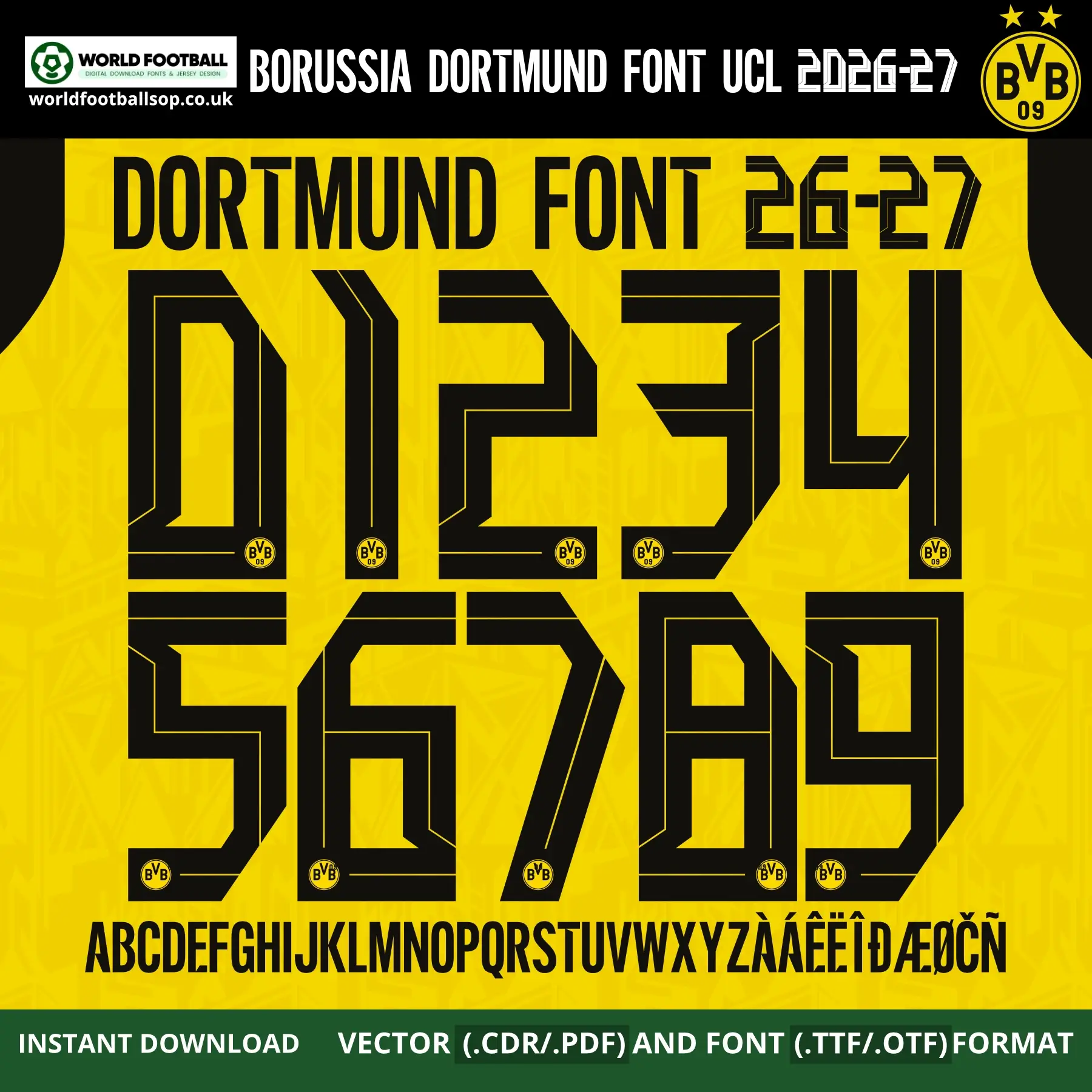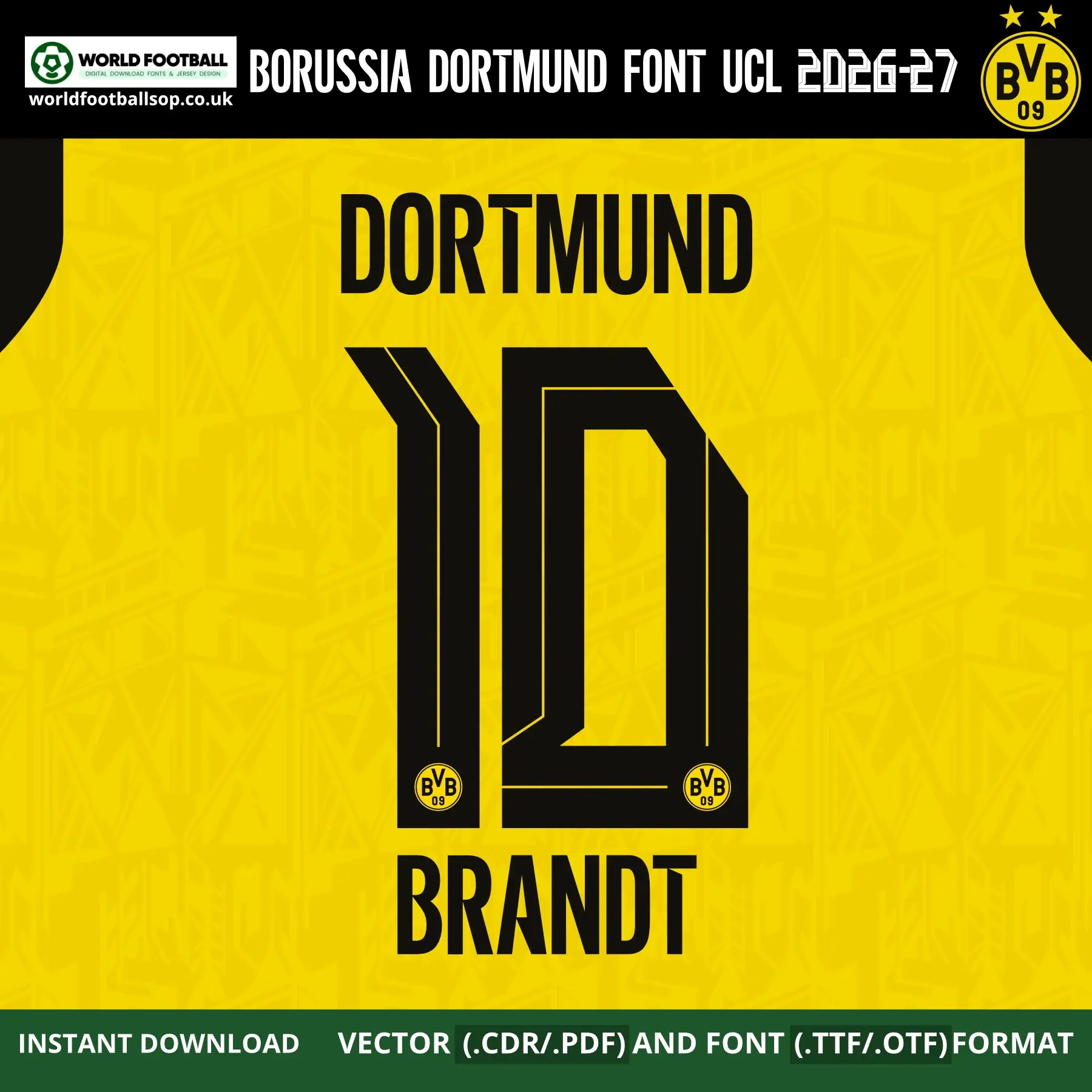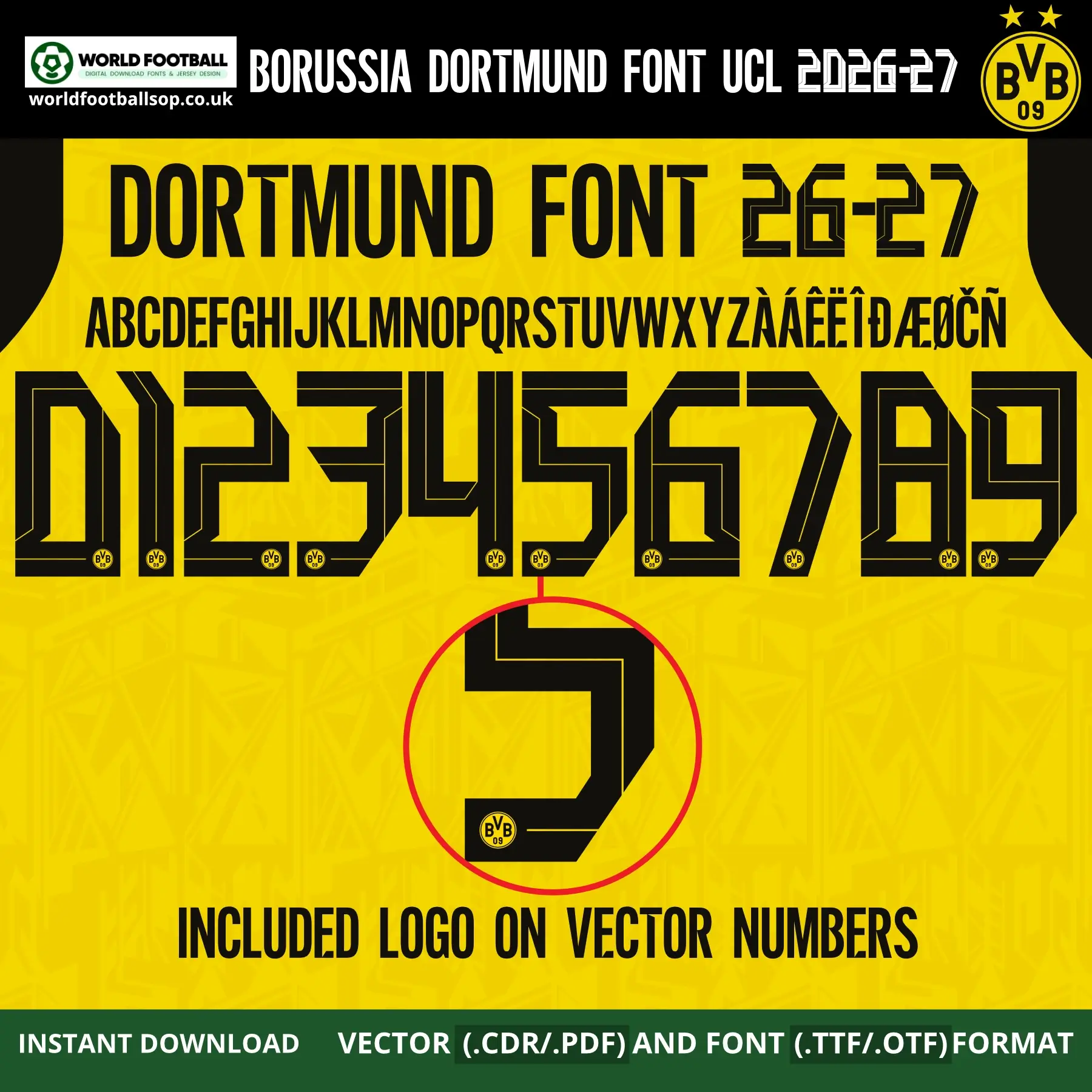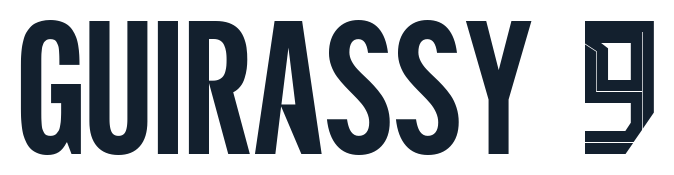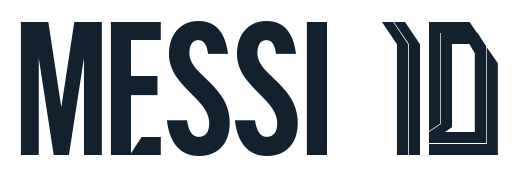
Borussia Dortmund Font UCL 2026-27 – Official‑style Jersey Typography
This Borussia Dortmund Font UCL 2026-27 kit recreates the bold, geometric block lettering used on BVB’s iconic signal yellow home shirts for the 2026-27 UEFA Champions League season. The tall, wide numbers and letters feature a deep black fill with sharp multi-line inner-outline detailing running through every character – creating the strong, industrial look that defines Dortmund’s kit typography and stands out on the famous yellow and black Westfalenstadion backdrop. It is perfect for fans, designers and print shops who want authentic‑looking names and numbers on custom Borussia Dortmund jerseys and football graphics.
BVB 09 crest logo embedded on every vector number and letter
Full uppercase alphabet A-Z and numbers 0-9 with extended accents (À, Á, É, Ë, Î, Ð, Æ, Ø, Č, Ñ)
Preview layouts showing complete number set and example name/number combo – BRANDT 10 / DORTMUND
UCL accuracy: Inspired by the exclusive Borussia Dortmund Font UCL 2026-27, not a generic typeface
High legibility: Bold black geometric block forms with multi-line inner detail keep numbers clear on both TV and print designs while maintaining BVB’s iconic yellow and black identity